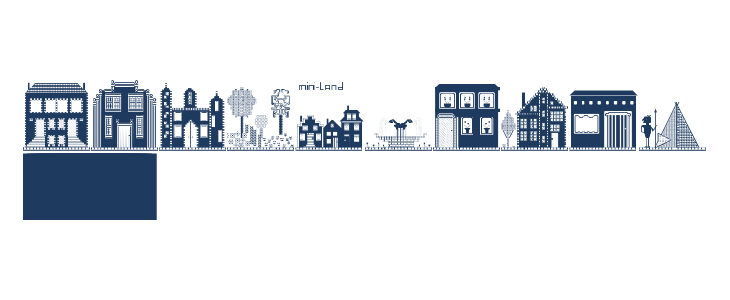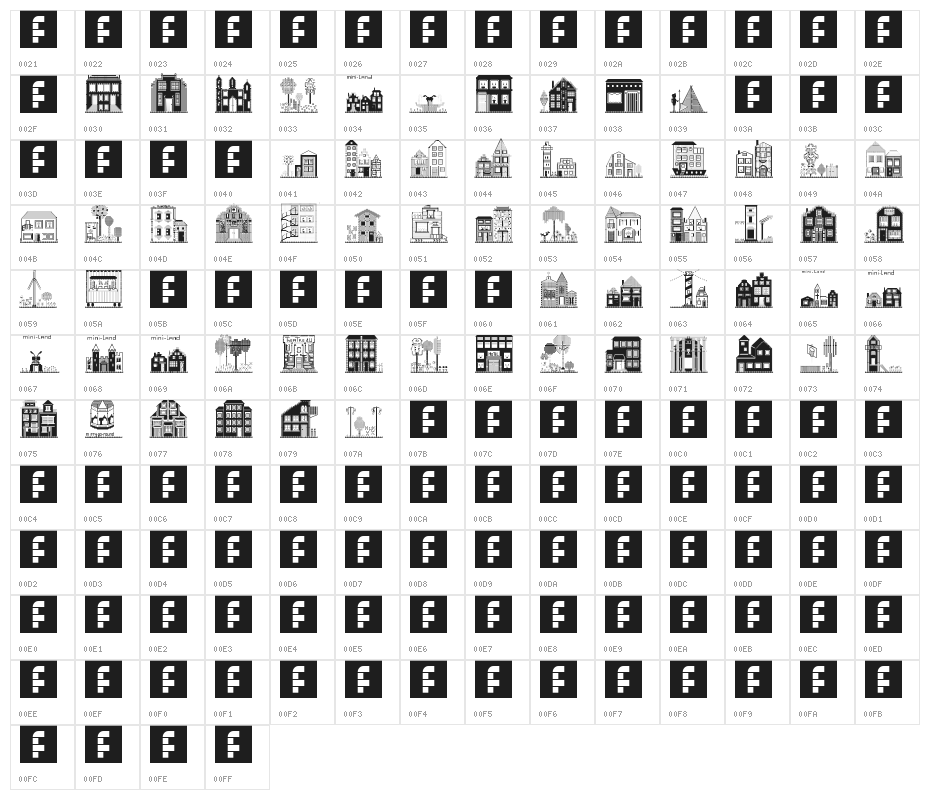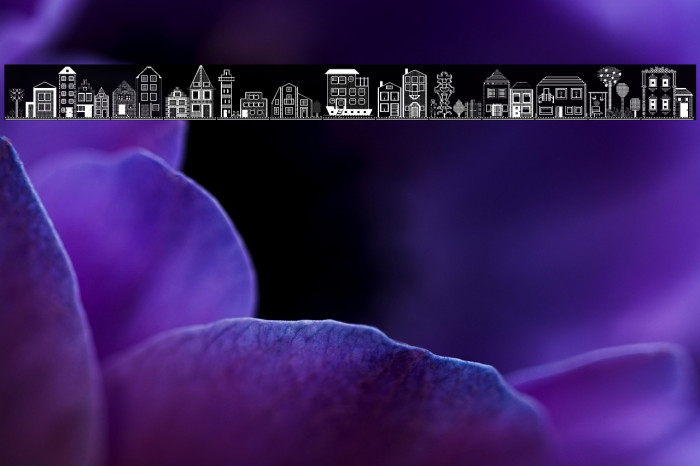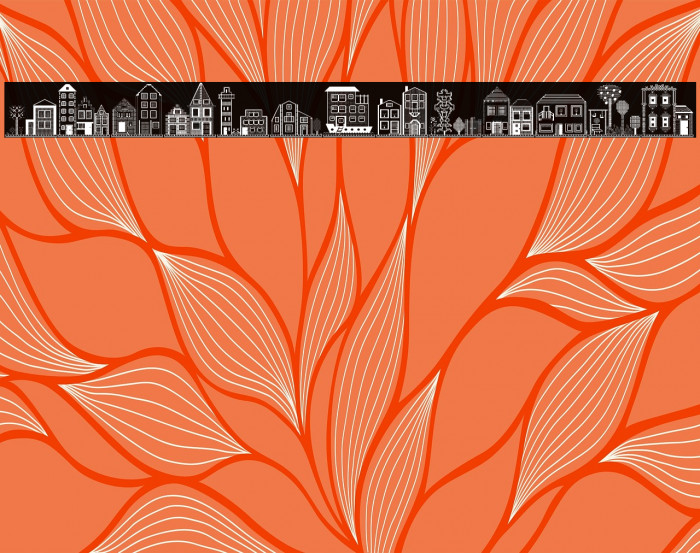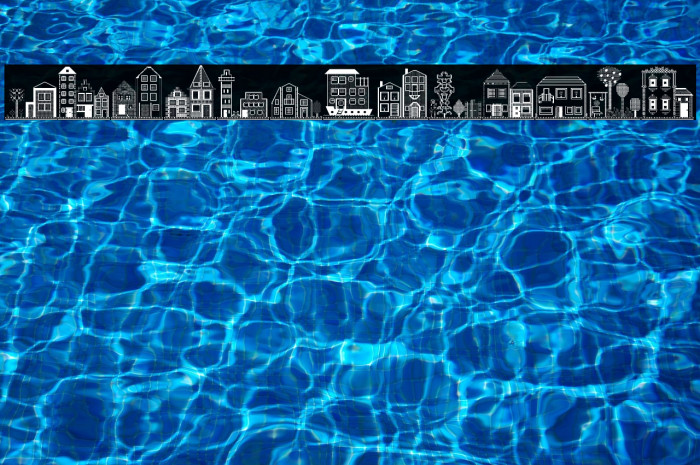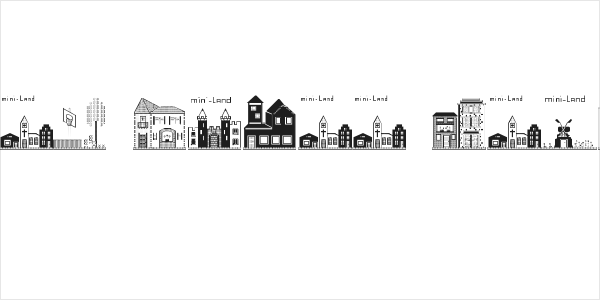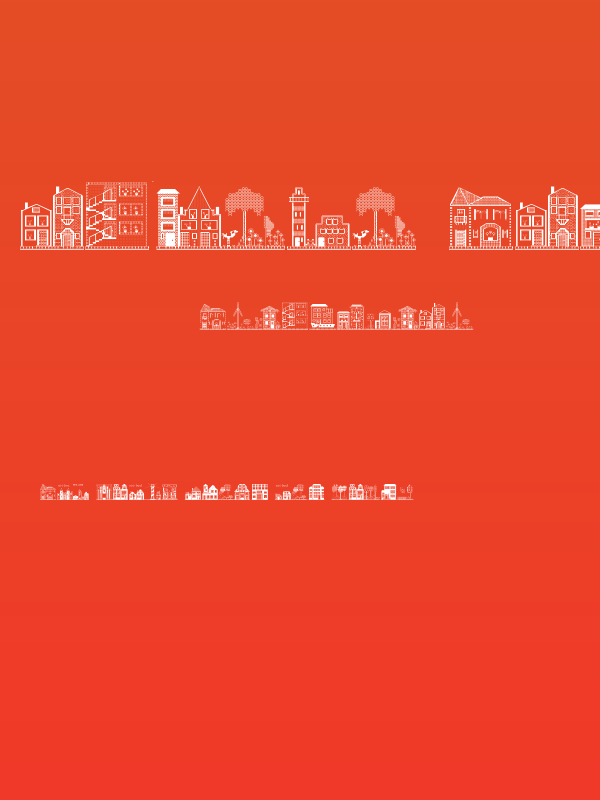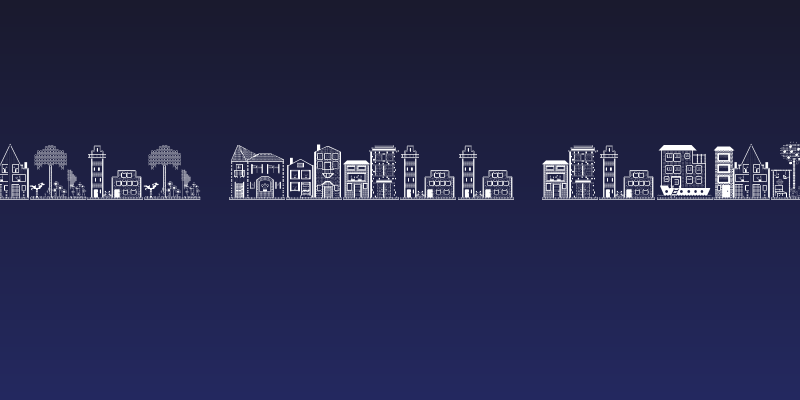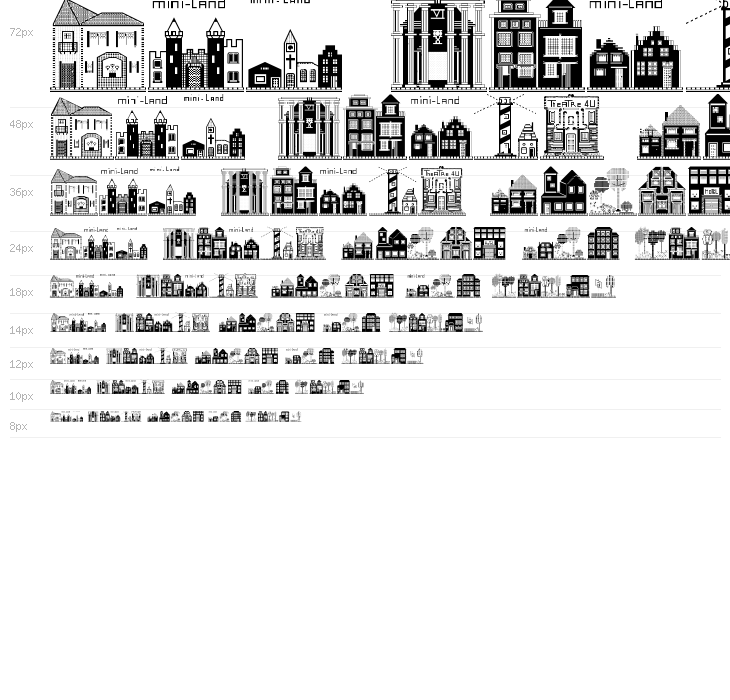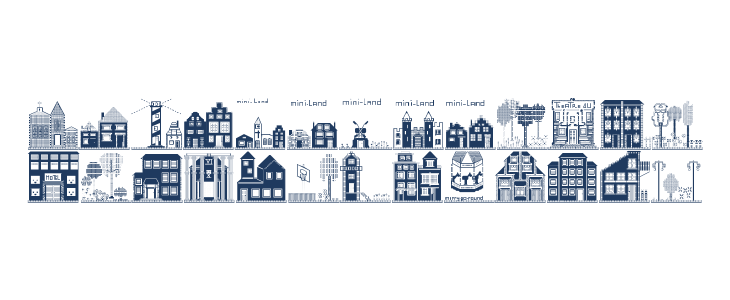
Houses Three Regular Font
Houses Three Regular Description
A decorative font composed of detailed, miniature illustrations of various houses, buildings, and small town elements, each character representing a unique architectural style or structure. The glyphs are highly pictorial and intricate, resembling a hand-drawn cityscape with trees, windmills, and other urban features.
| Overall Style | Decorative, Playful, Whimsical |
| Use Case | Headlines, Logos, Themed graphics, Posters |
| Proposed Projects | ChildrenΓ’β¬β’s books, urban-themed posters, creative branding, event invitations, educational materials, playful packaging. |